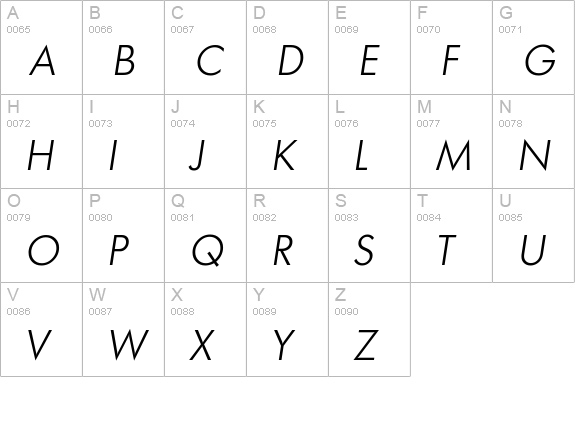
LimerickSerial-Light-Italic is a refined, elegant, italic variant in the LimerickSerial typeface family \xE2\x80\x94 well suited to elegant body text, refined sub-headings, and luxury branding.
LimerickSerial-Light-Italic is a charming and elegant font that exudes sophistication and grace. Its delicate curves and stylish slant make it perfect for adding a touch of refinement to any project. This font effortlessly combines classic elements with a modern twist, creating a timeless and versatile typeface that is sure to impress. The best part? LimerickSerial-Light-Italic is available for free download at FontsMarket.com. This means you can access this exquisite font without any cost, making it a valuable addition to your font collection. Whether you're designing invitations, creating a logo, or crafting a stylish website, LimerickSerial-Light-Italic will elevate your work with its distinctive flair and elegance. Don't miss out on this opportunity to enhance your designs with the beauty of LimerickSerial-Light-Italic. Download it for free today and unlock a world of creative possibilities!